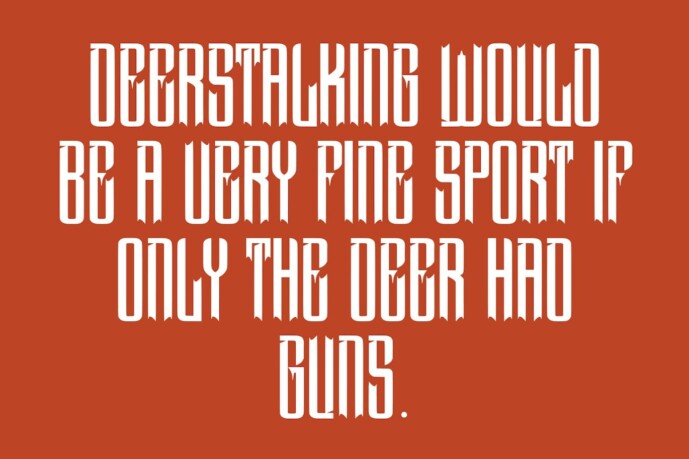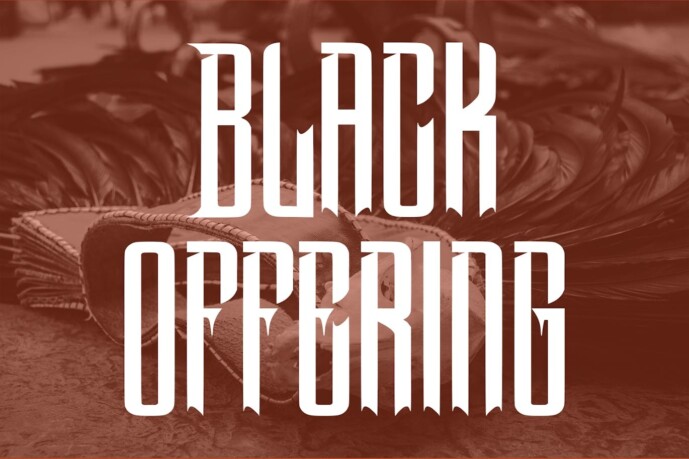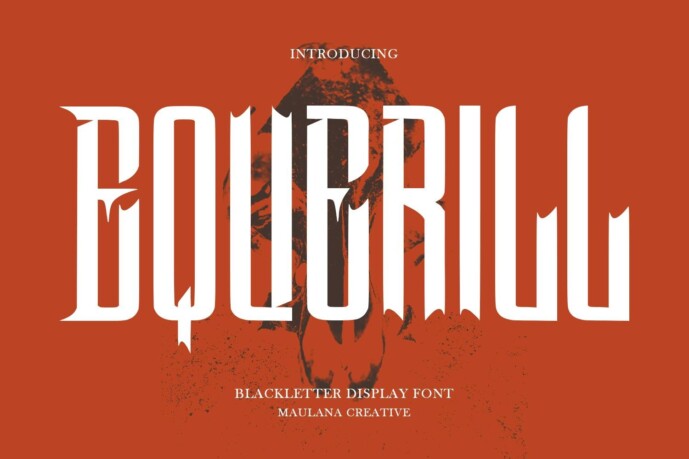
Equerill Font
Equerill Font – Blackletter Horror Display Font. A heavy stroke, vintage character with variations. To give you extra creative work. Equerill Blackletter Display Font supports multilingual language. This font is suitable for logo design, social media, movie titles, book titles, short text, even long letter, and suitable for your secondary text font with script or Serif. Make stunning work with Equerill Blackletter Font